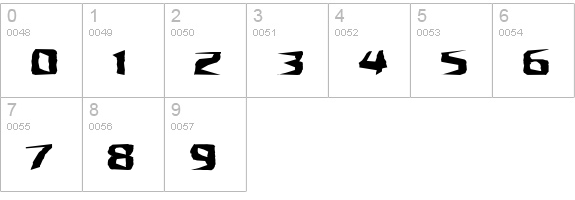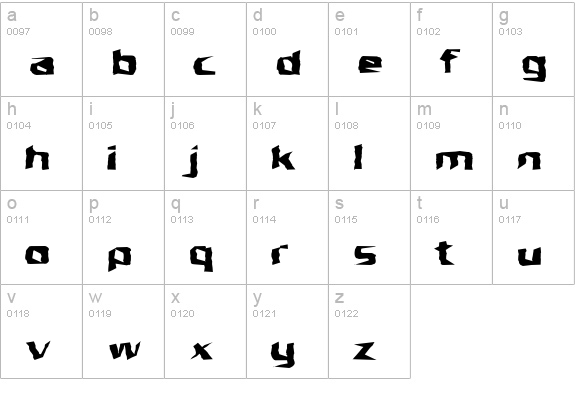
Unresponsive BRK Font Details
The Unresponsive BRK font is a striking display font that exudes a modern and edgy vibe. Its unique design features sharp angles and bold lines, making it perfect for creating attention-grabbing headlines, logos, and posters. This font is versatile and can be used in various design projects, from fashion to technology. One of the standout features of the Unresponsive BRK font is its ability to make a statement. Its unconventional style and distinct character set it apart from other fonts, making it ideal for those who want to add a touch of creativity and personality to their designs. What makes the Unresponsive BRK font even more appealing is that it is free to download at FontsMarket.com. This means that designers, creatives, and enthusiasts alike can easily access this font and incorporate it into their projects without having to worry about any cost. Whether you are a professional designer looking for a font that will make your work stand out, or an individual looking to add a unique touch to your personal projects, the Unresponsive BRK font is a fantastic choice. With its striking design, versatility, and the fact that it is freely available to download, this font is a must-have in any font library.